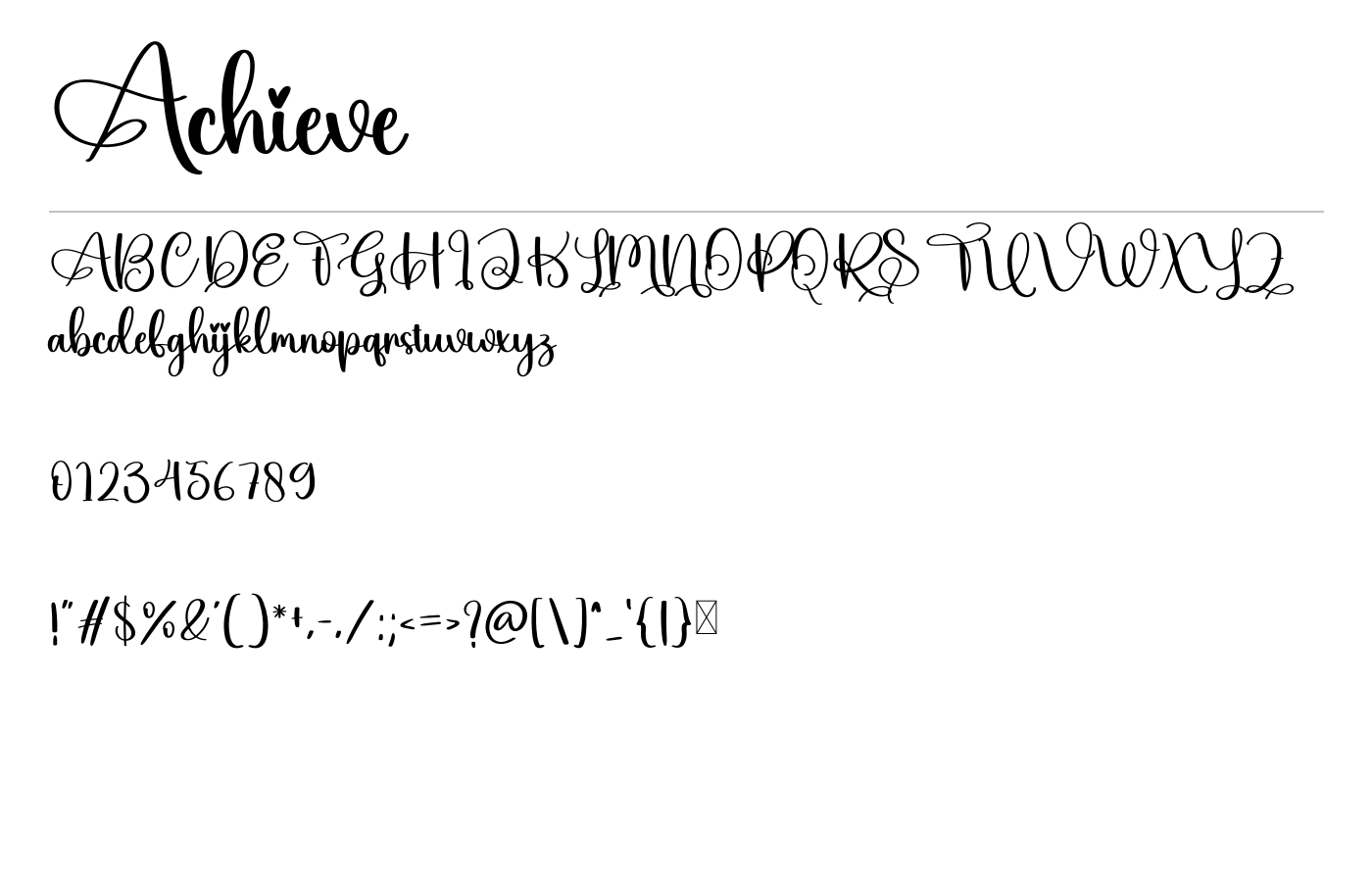
Achieve Font is a decorative script typeface with elegant, flowing letterforms that combine playful swirls and curls with a smooth, hand-lettered feel. Its light weight and narrow spacing give it a delicate and refined look, making it perfect for use in invitations, branding, and creative projects that require a charming yet sophisticated touch. This font’s ornate uppercase letters and lively lowercase forms make it ideal for eye-catching headlines and artistic designs.
Achieve Font
About Achieve Font